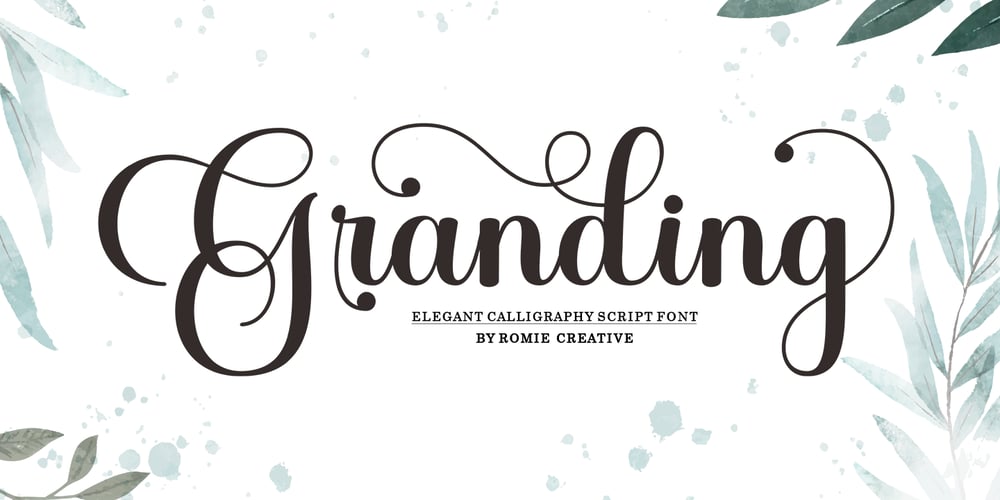
Granding Script Font Family was designed by Romi Rahmadi and published by Romie Creative. Granding Script contains 1 styles and family package options. Granding Script is a very easy to read Script typeface, a beautiful, classy and elegant typeface. Can be used for various purposes such as logos, wedding invitations, t-shirts, letterhead, signage, news, posters, badges etc.